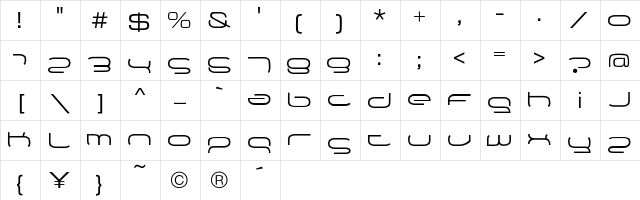
Metamorfoze reguler
Design Context for Metamorfoze Typeface
Metamorfoze offers clean, dependable letterforms without strong stylistic allegiance, making it a practical choice for designers who need flexibility.